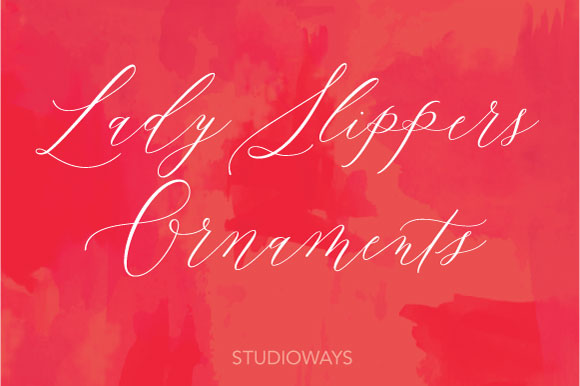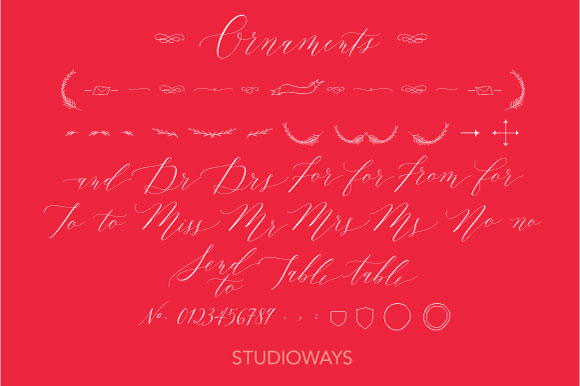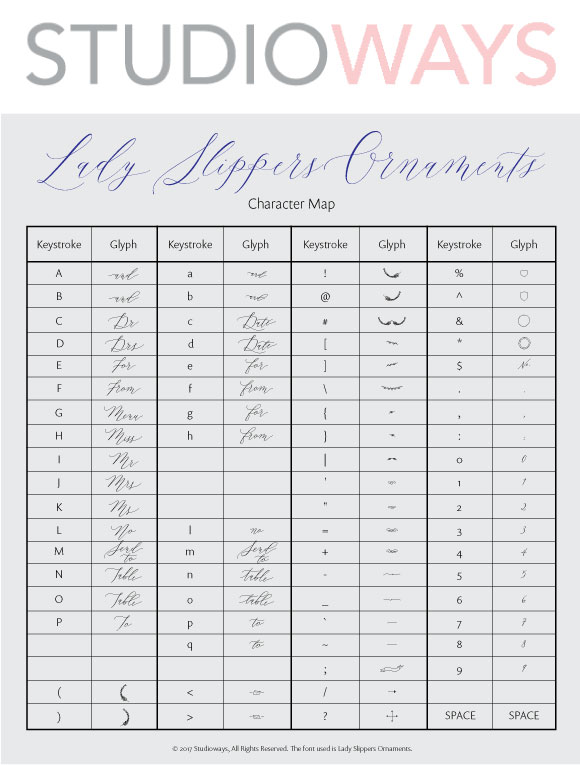
Lady Slippers Ornaments Font
Lady Slippers Ornaments is offered as a companion for any font in the Lady Slippers family. It contains decorative ornaments, crests and other hand drawn elements, as well as a set of figures, minimal punctuation, and some catchwords useful for invitations and bridal pieces. All the glyphs are accessible from any standard keyboard.